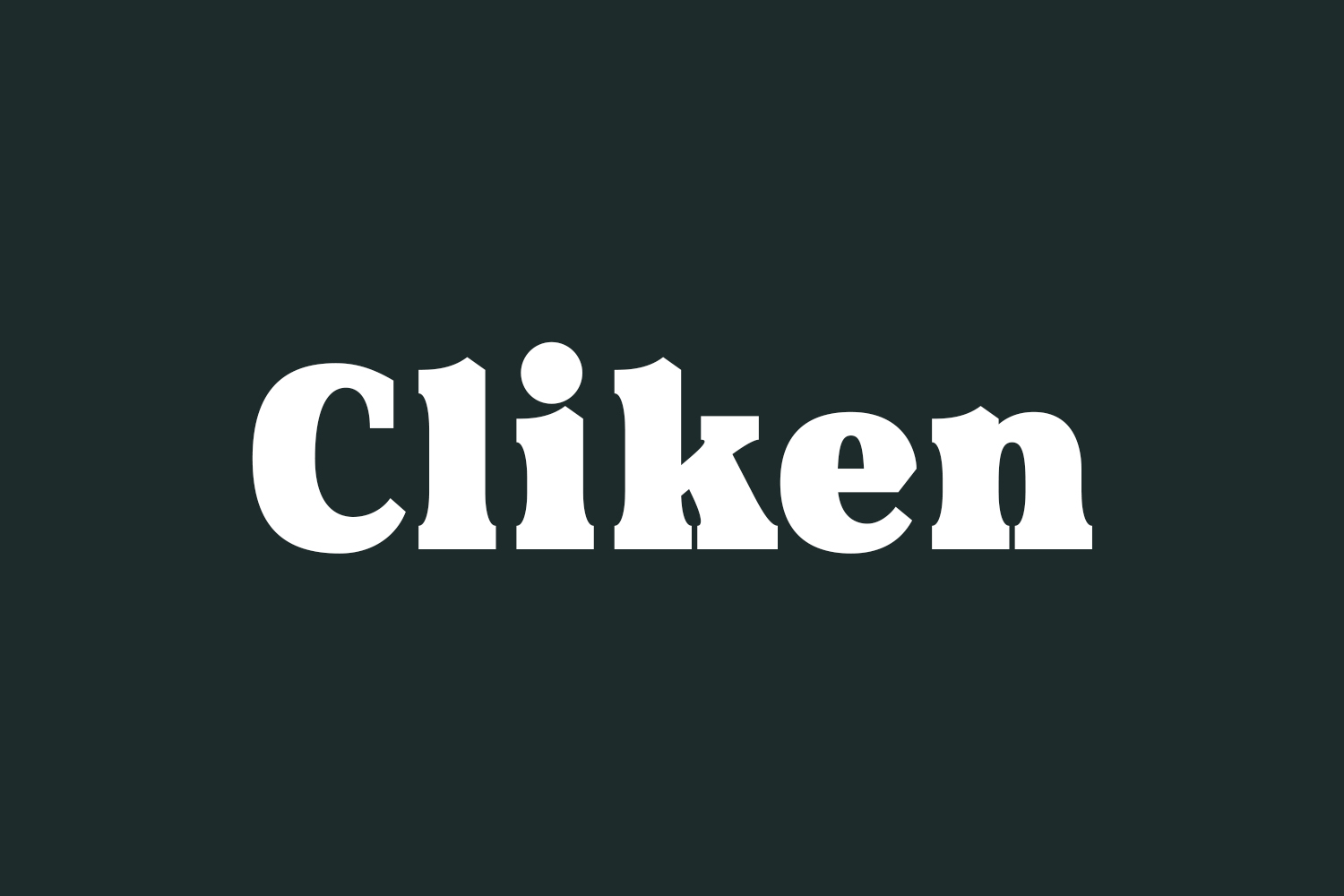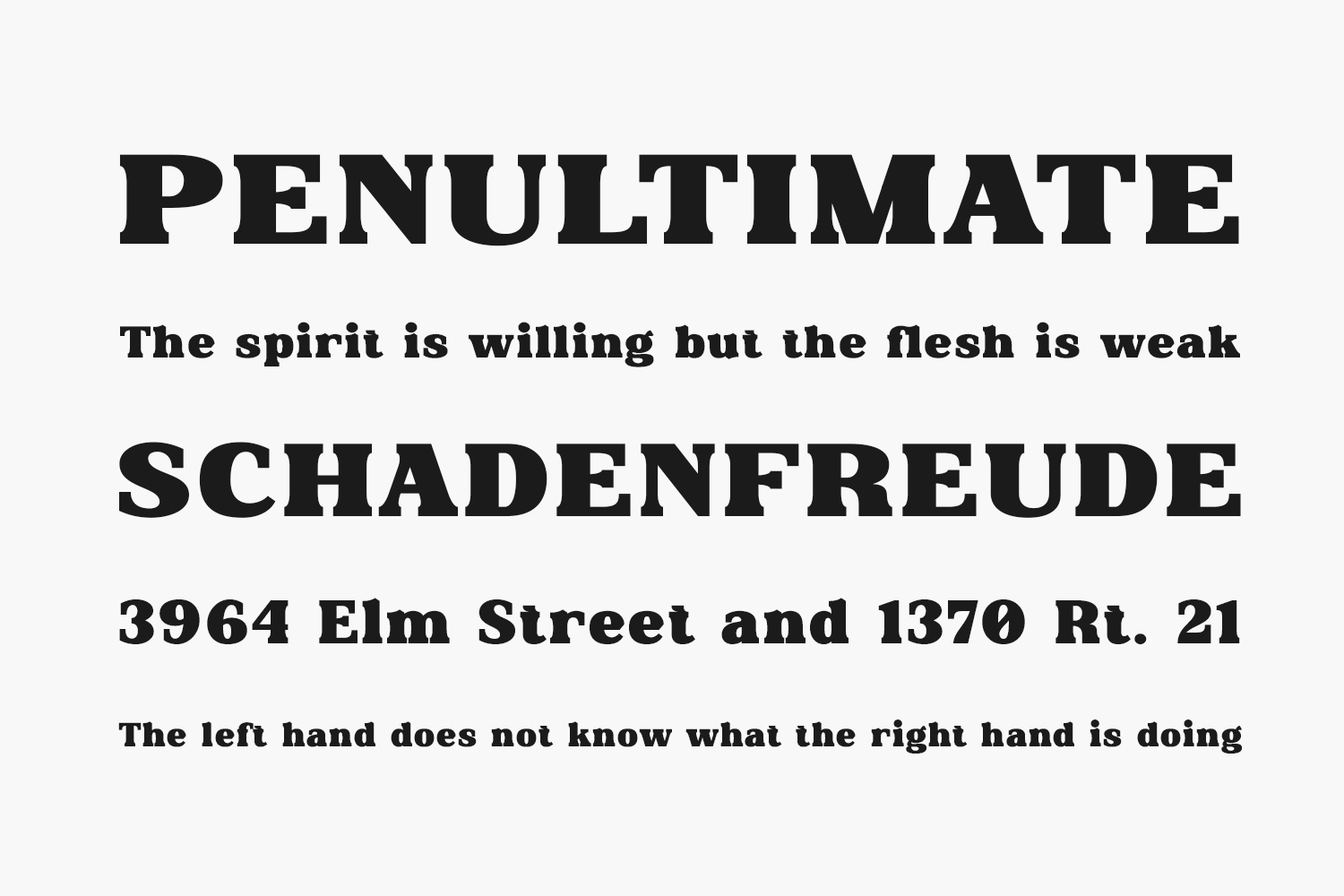
Experience the epitome of modern sophistication with Cliken Free Font, a serif font that exudes stylishness. Meticulously crafted with intricate detailing, this font is a valuable addition to your library, capable of elevating any project across various themes with its unique charm and potential. Cliken Free Font is free for personal use only. Please purchase the full version for commercial use.
Designed by BrandSemut